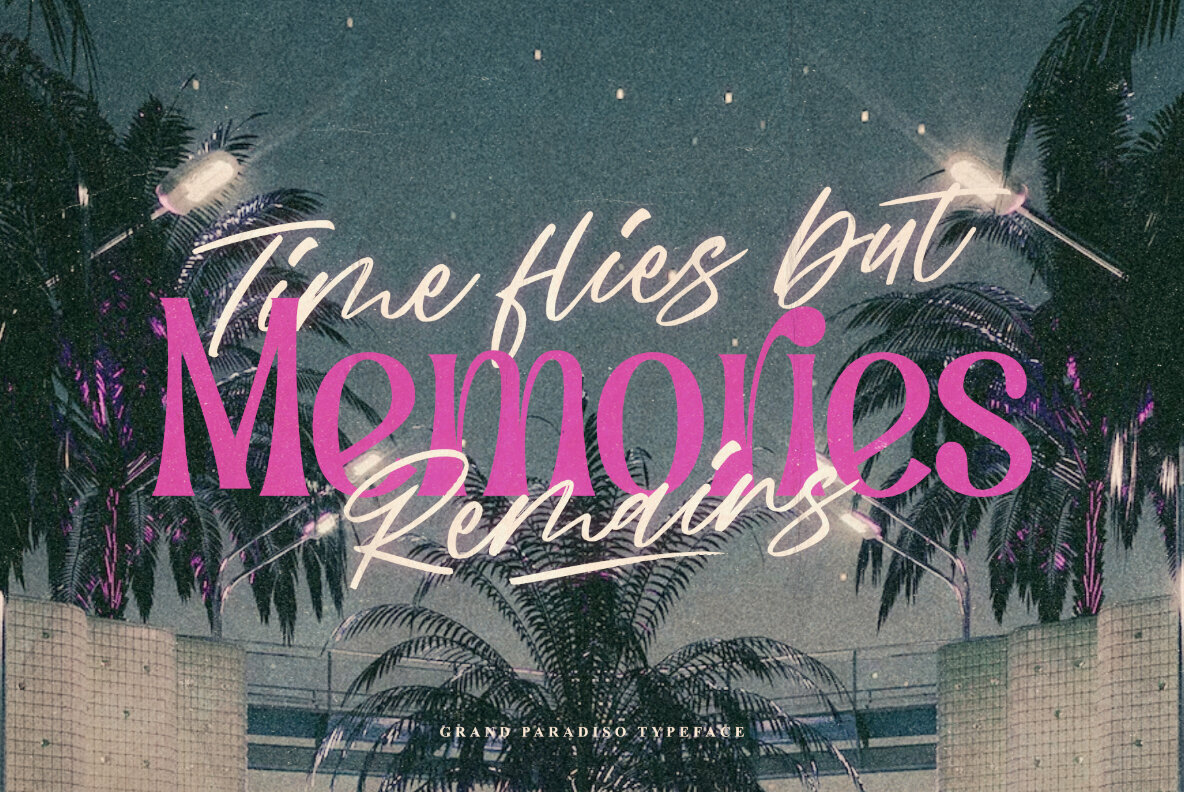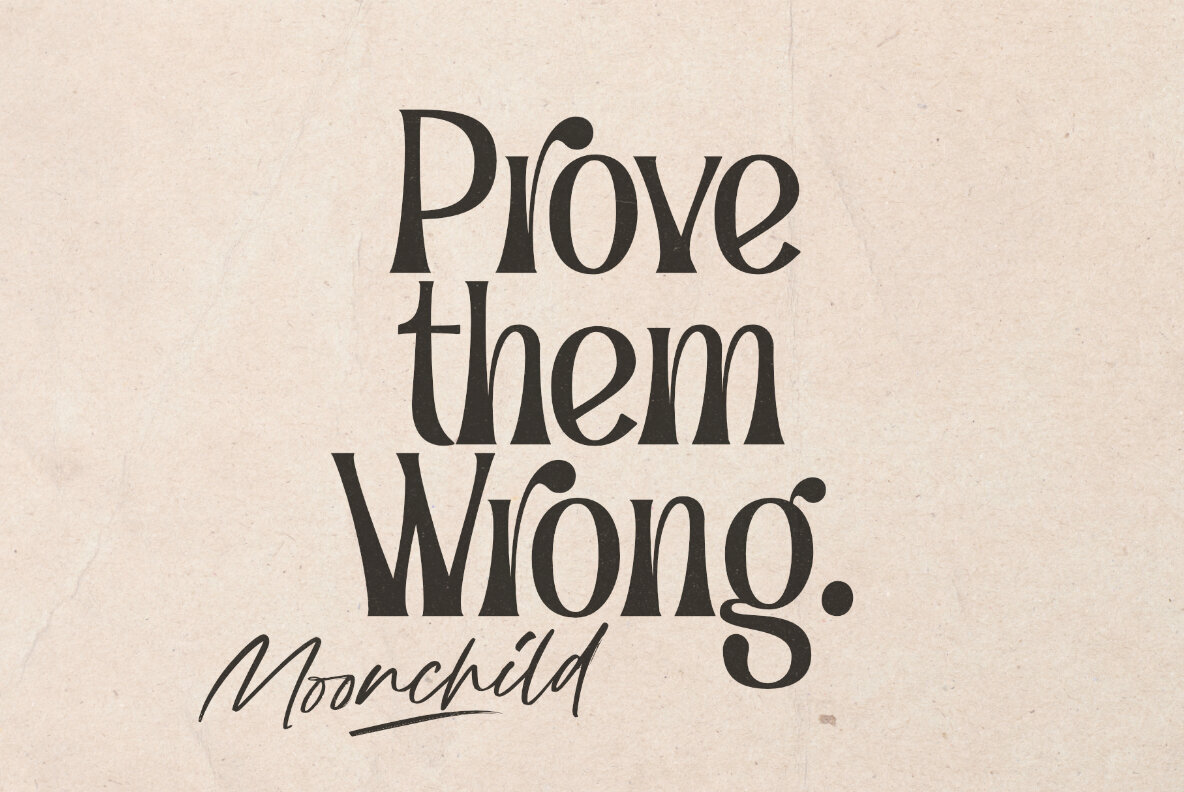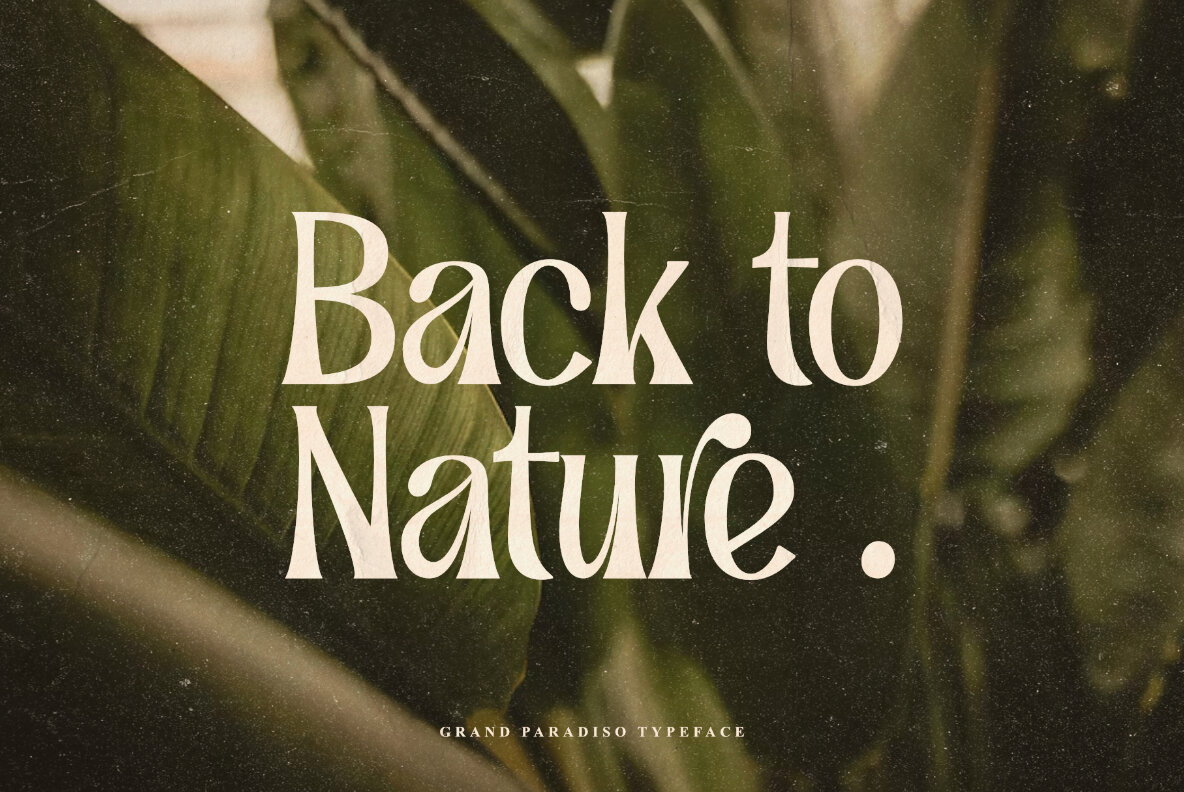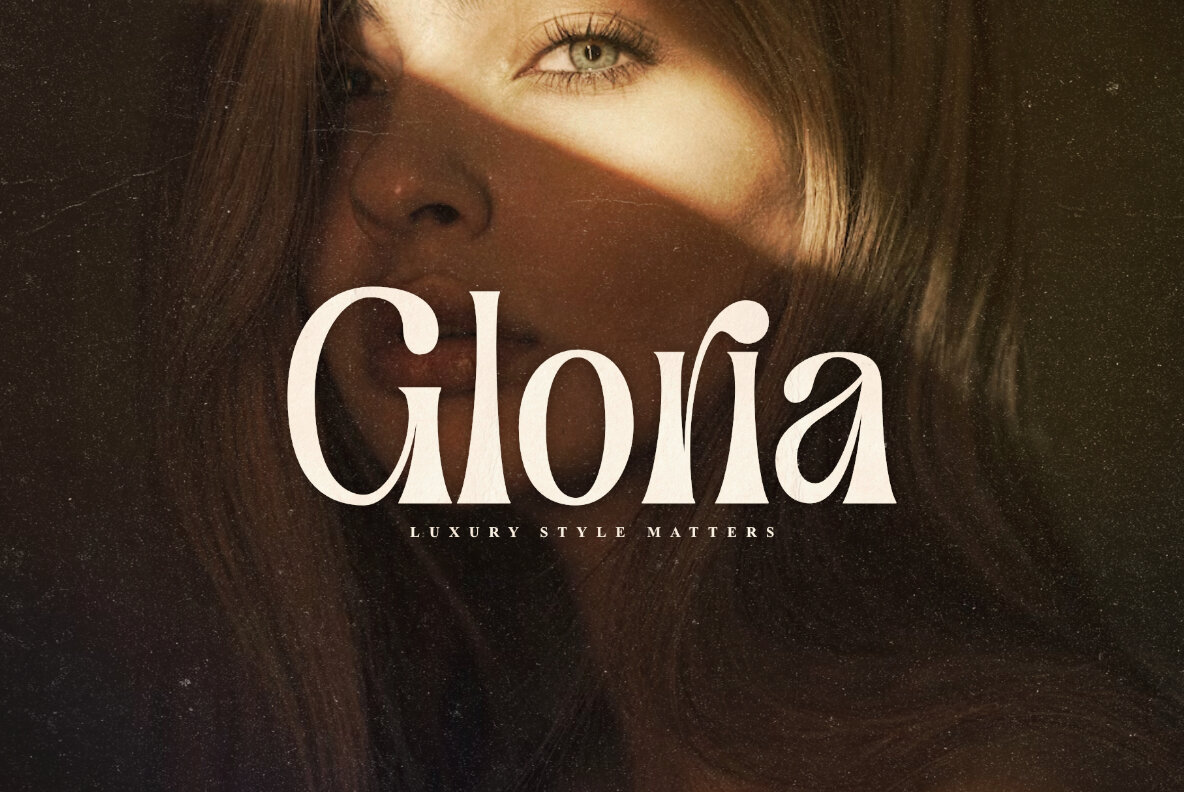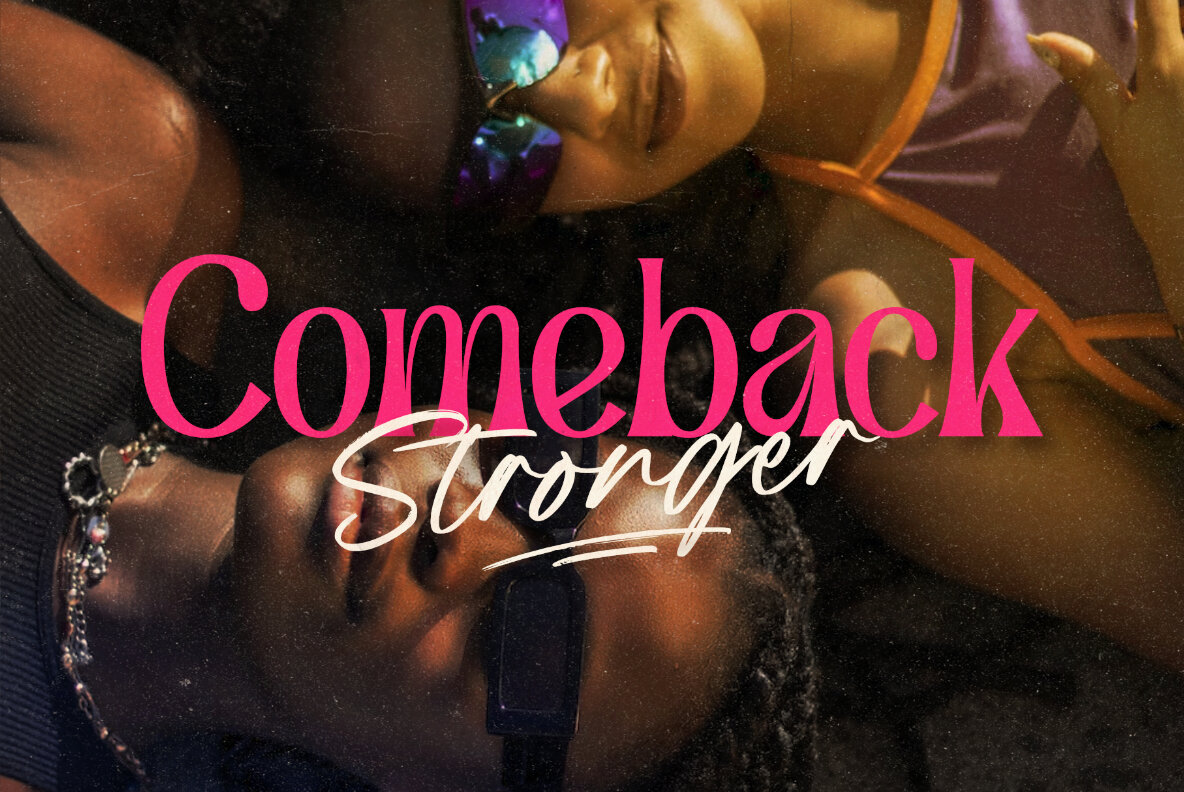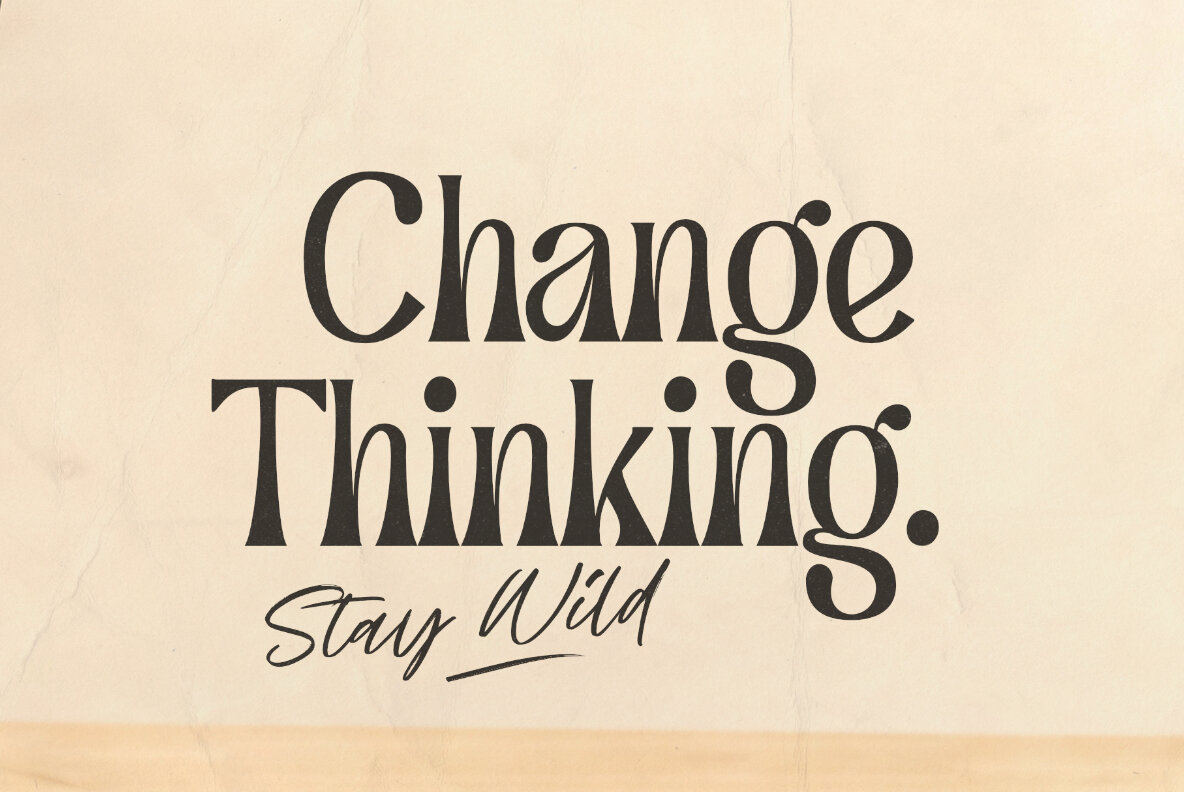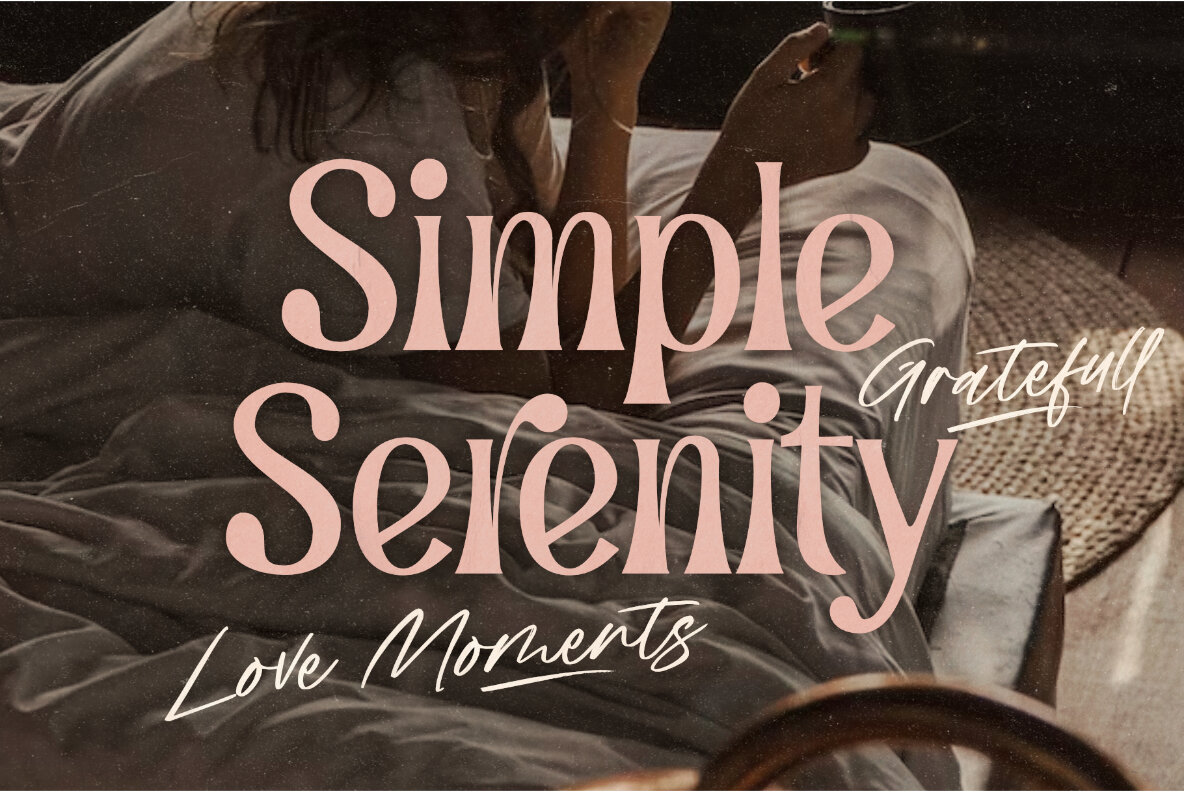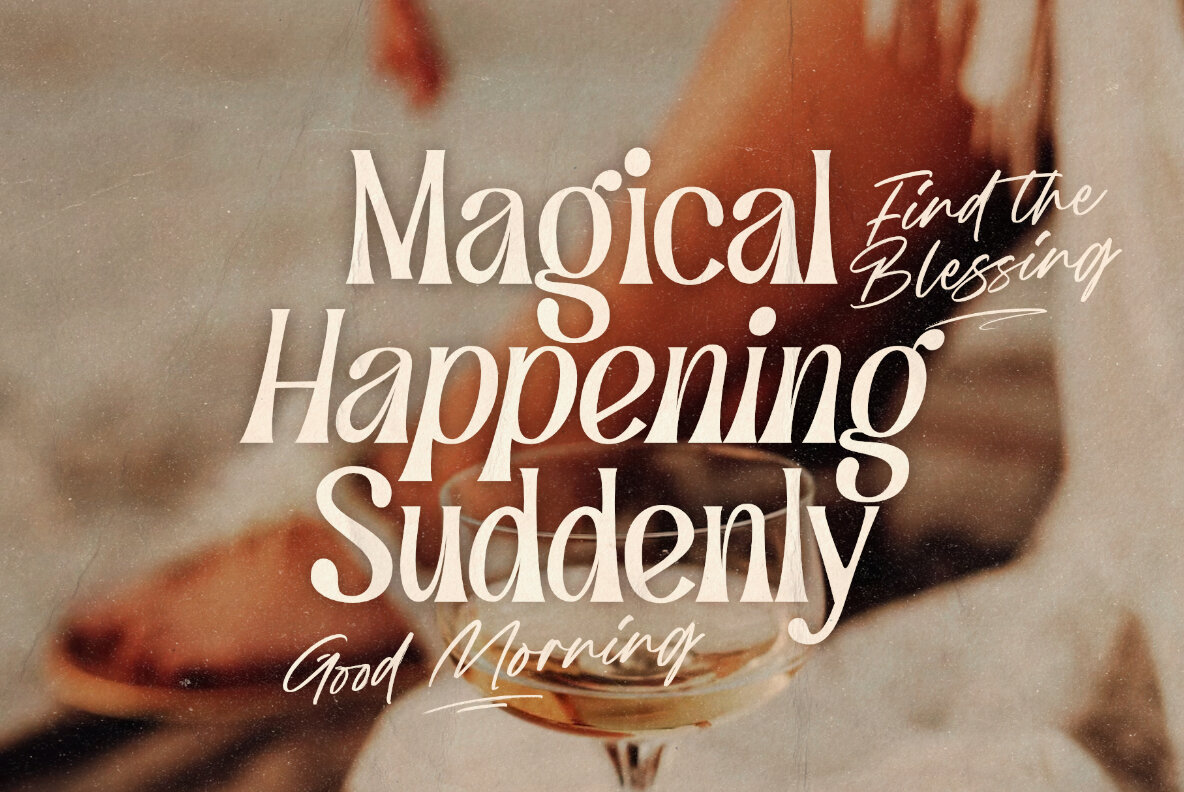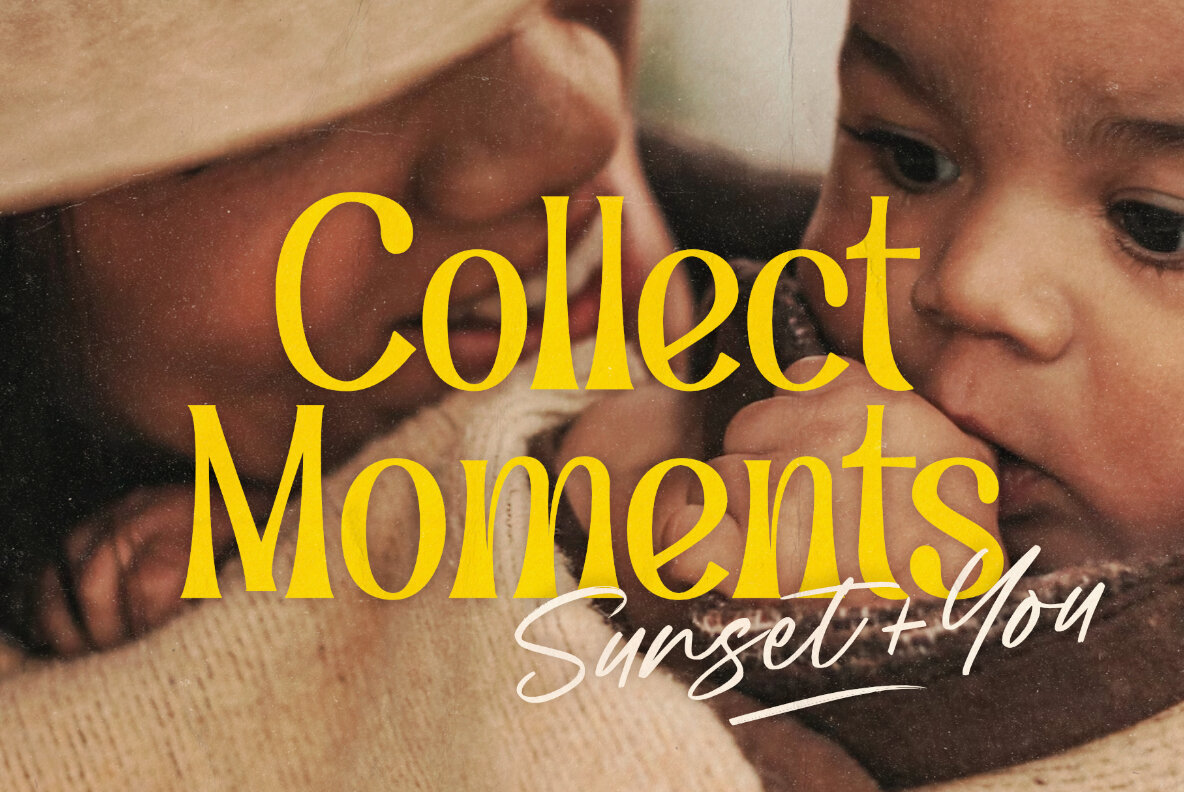
Grand Paradiso Font
Grand Paradiso is a luxurious and elegant display font that will add a touch of sophistication to any design. With its bold and dramatic curves, this font is perfect for headlines, titles, and branding projects that require a touch of elegance and class. Inspired by the grandeur of nature and the beauty of mountains, Grand Paradiso is designed to capture the essence of nature and the majesty of the great outdoors. Its unique and artistic letterforms make it ideal for creating logos, posters, and other design projects that require a touch of originality and creativity. Whether you’re designing for a luxury brand or creating a beautiful piece of typography, Grand Paradiso is the perfect choice for your next project.